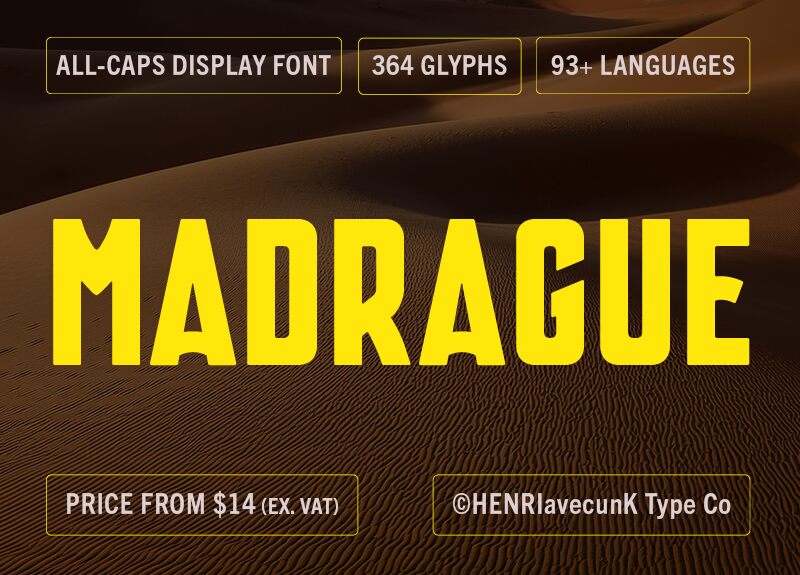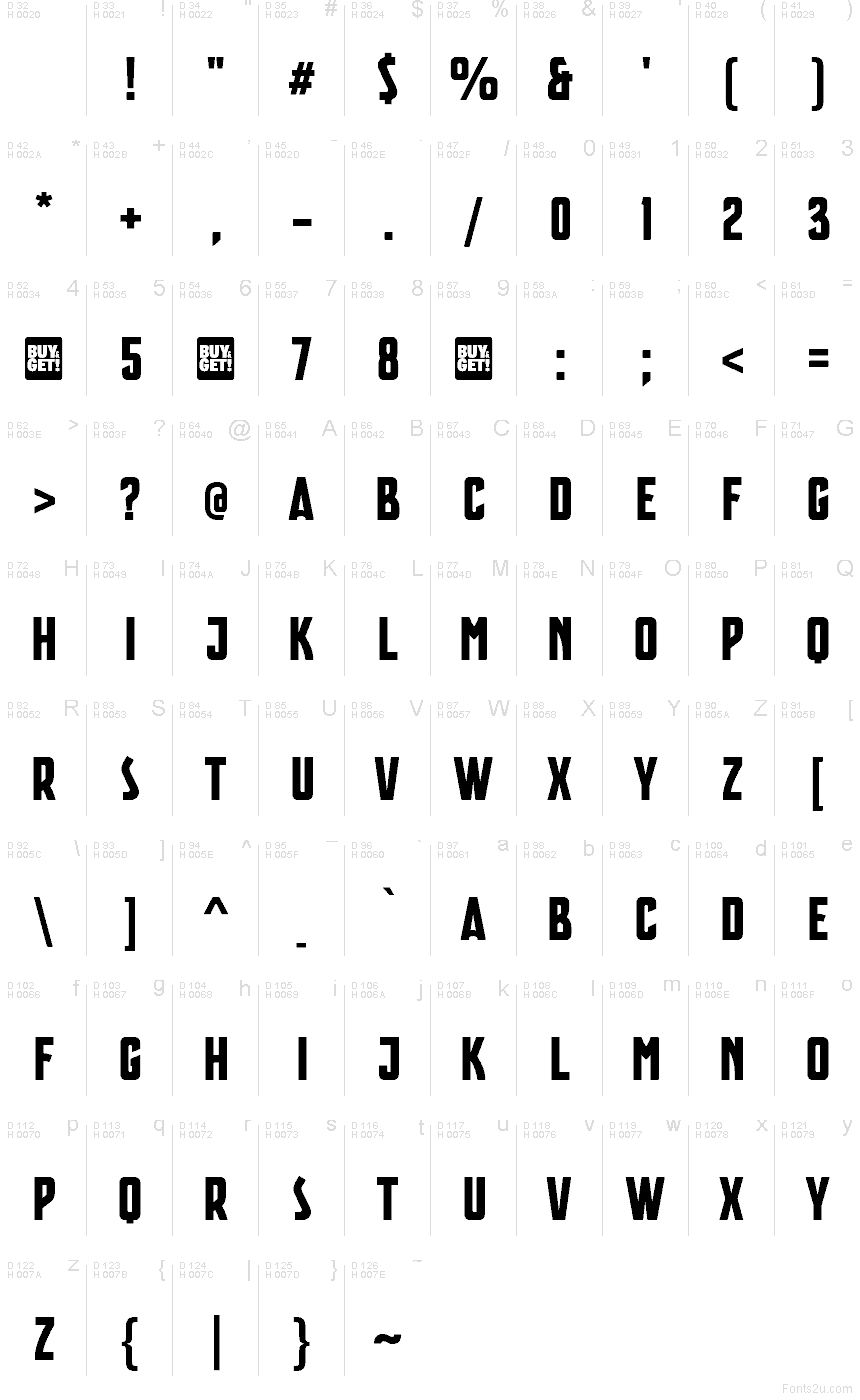
Madrague Bold font by HENRIavecunK Type Co is a free bold sans serif typeface with a tall, tightly packed stance that hits the page like a solid block of ink. Its ultra-condensed forms, squared shoulders, and narrow counters create a strong, almost architectural rhythm that feels both retro and sharply current. The Madrague family vibe is heavy yet controlled, giving you loud impact without visual chaos.
Using Madrague Bold, you can squeeze big, shouty messages into tight spaces—great for posters, banners, album covers, packaging, magazine mastheads, and punchy logotypes. This free font thrives in all-caps settings where you want intensity and order at the same time. Pair it with a light, open grotesque for body text to let Madrague do the heavy lifting while the supporting type stays quiet.
Madrague is a font designed by HENRIavecunK in 2026.